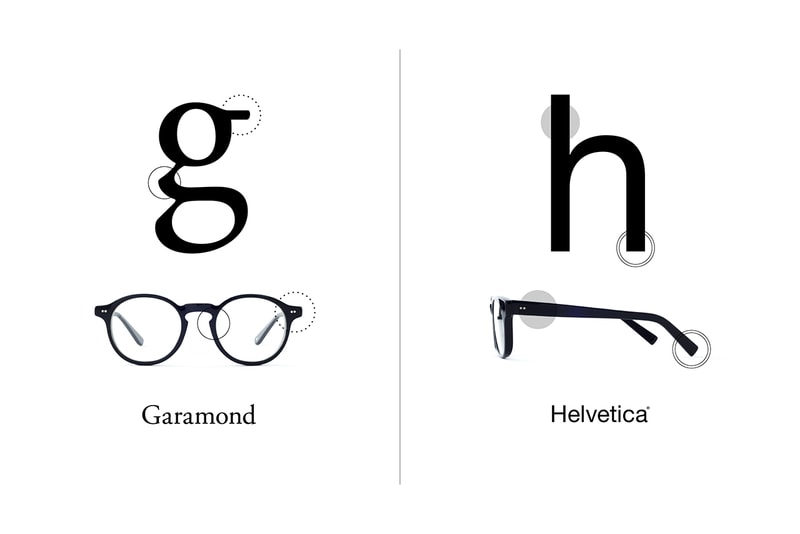
TYPE: The Typeface-Inspired Glasses Collection
TYPE, in collaboration with retail startup Oh My Glasses, presents a unique selection of glasses
TYPE, in collaboration with retail startup Oh My Glasses, presents a unique selection of glasses inspired by some of the world’s most iconic typefaces. To start off, the collection feature two frame designs inspired by the Garamond and Helvetica family of fonts. The Garamond boasts a curvy, round design while the Helvetica goes for a more square look with rounded edges. Each frame can be had in black, tortoiseshell, or clear colorways and in thin, regular or bold finishes. Check out the new frames here.